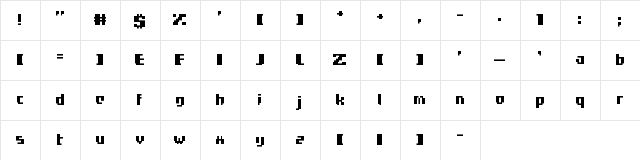
Frogotype Regular
| Designer | NAL |
Design Context for Frogotype Typeface
Frogotype takes a measured approach to typography — its balanced proportions and neutral character make it a reliable workhorse for both digital and print work.